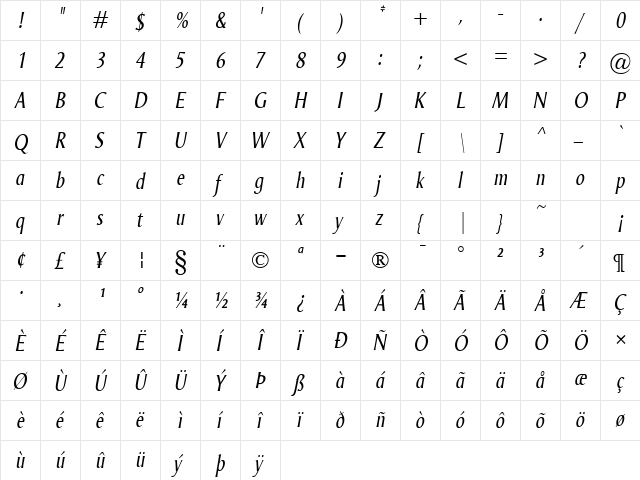
Odense Cond Italic Font Preview
Design Context for Odense Cond Typeface
Odense Cond is a composed and adaptable typeface that performs quietly and consistently across a wide range of design contexts. The slanted form adds forward momentum and visual energy. The condensed width makes it efficient for tight spaces without sacrificing legibility.